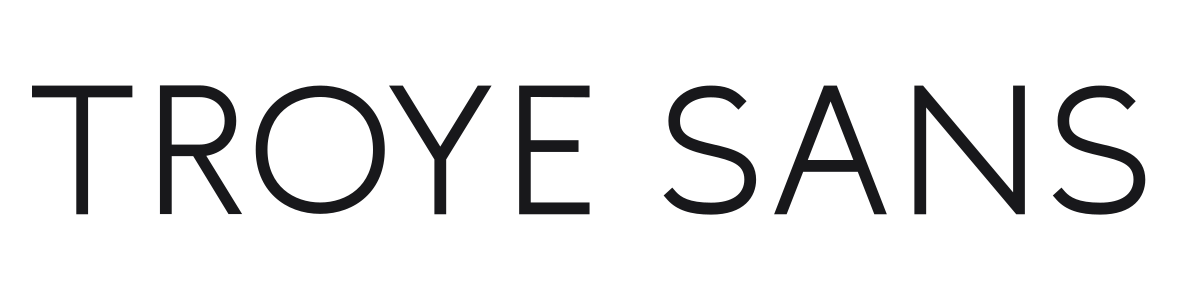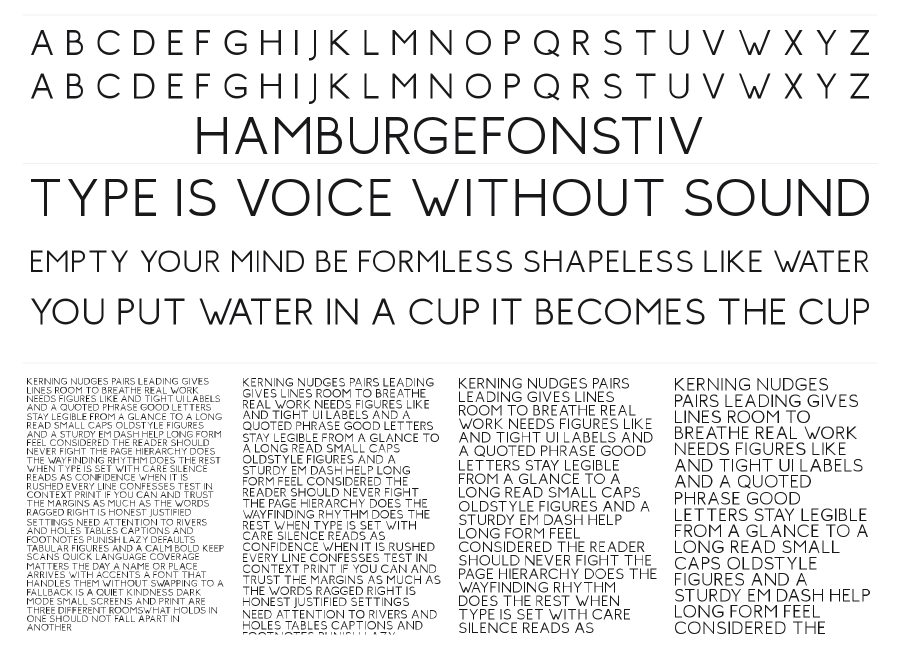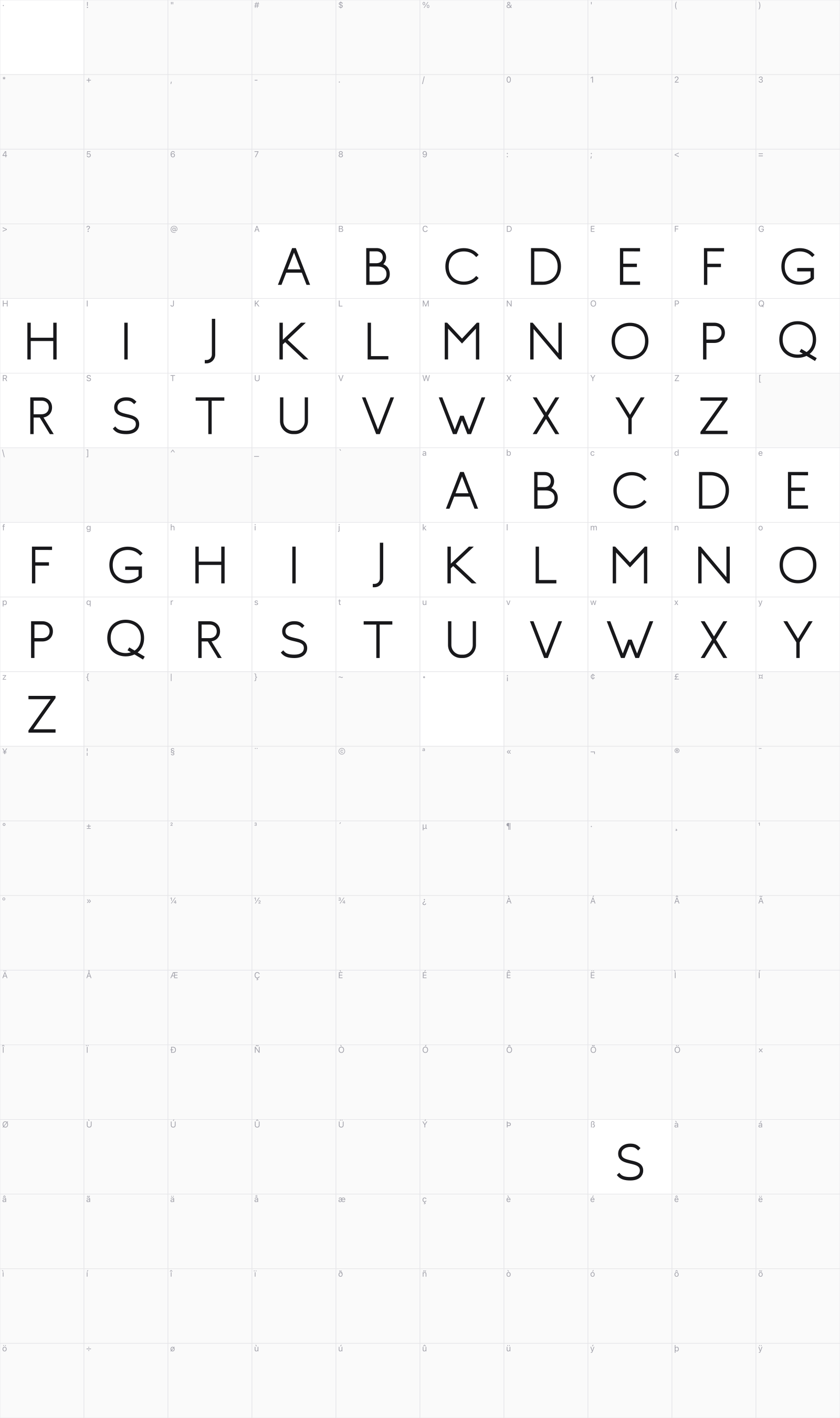
Troye Sans
Troye Sans is a light geometric sans-serif built on clean, airy proportions and generous letter spacing. The near-monoweight strokes and open forms give it a quiet confidence that reads as contemporary luxury. It sits naturally in fashion branding, editorial headers, and beauty packaging.